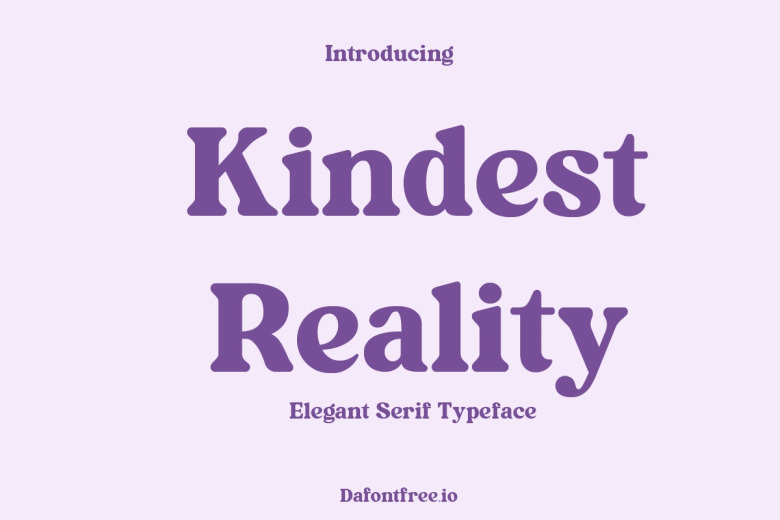
Kindest Reality Font
While paying homage to tradition, Kindest Reality modernizes serif styles for contemporary expressions. Subtle swashes and eye-catching accents imbue even simple sales copy or titles with vintage panache. Whether promoting upscale goods or cultural events, this typeface elevates visuals with a charm seen in few revivals.
Kindest Reality Serif Font